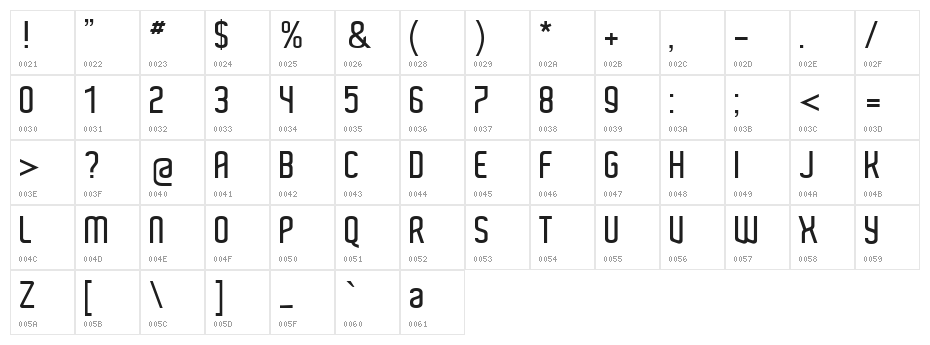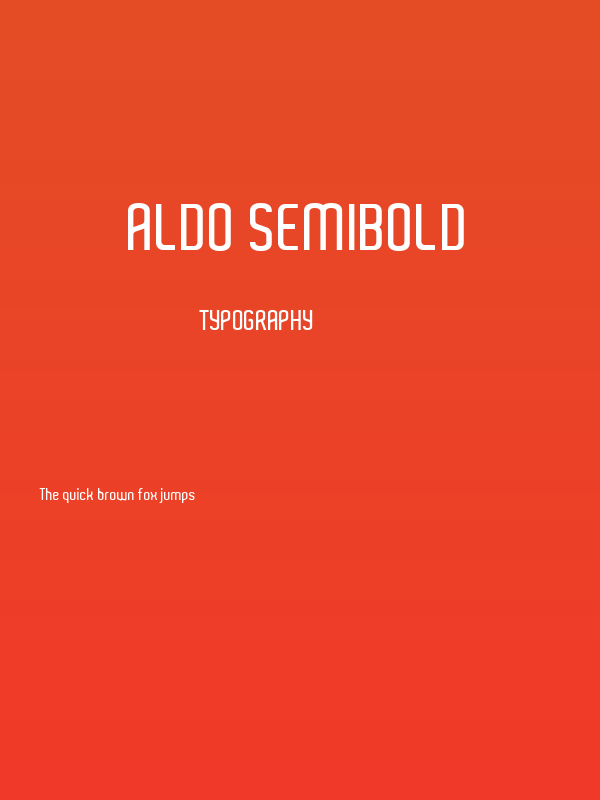
Aldo SemiBold Font
Aldo SemiBold Description
This font features a modern, geometric design with clean lines and rounded edges, creating a sleek and contemporary appearance. The characters are uniform in height, contributing to a cohesive and balanced look. The uppercase letters are tall and narrow, while the lowercase letters maintain a consistent width, enhancing readability. The numerals are distinct and easy to distinguish, making them suitable for various applications. Special characters are well-integrated, maintaining the overall aesthetic. The font's simplicity and clarity make it versatile for both digital and print media.